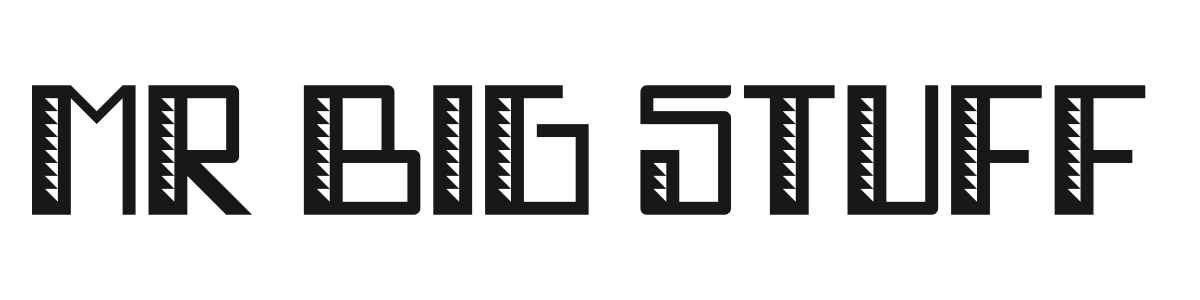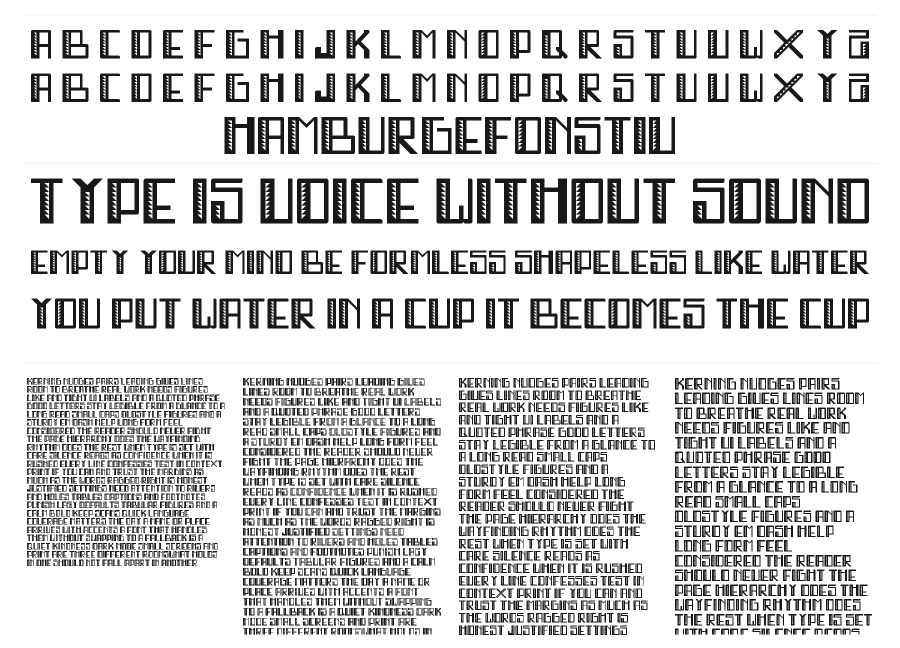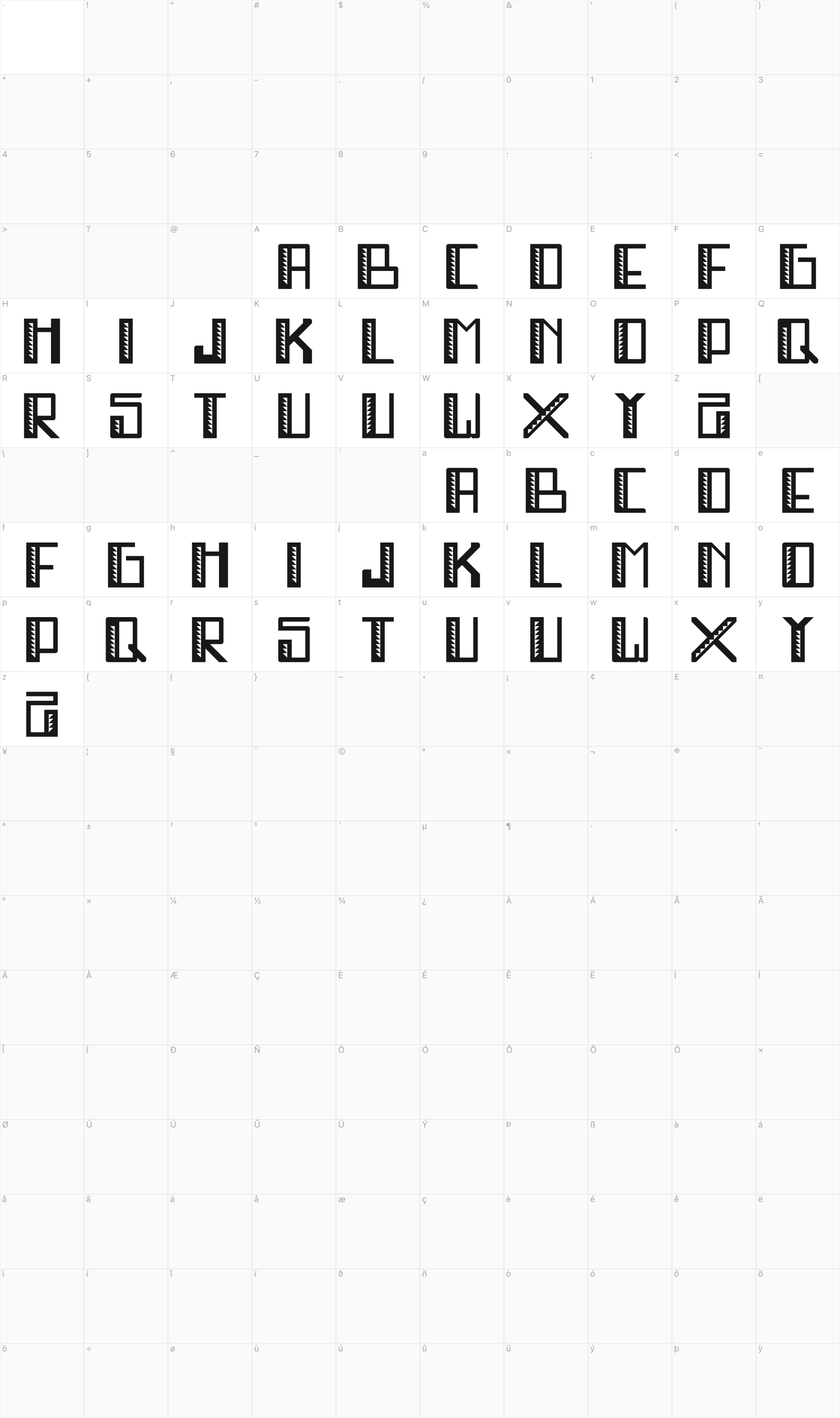
Mr. Big Stuff
by Vincent Miles
Mr. Big Stuff is a bold, condensed display font packed with retro personality, built from thick geometric stems filled with fine diagonal hatch lines that give each character an engraved, 1970s funk-poster feel. The all-caps construction and dense, blocky proportions make it a natural choice for headlines that need presence and attitude. It channels vintage soul record covers, sporting event graphics, and urban street culture in equal measure.